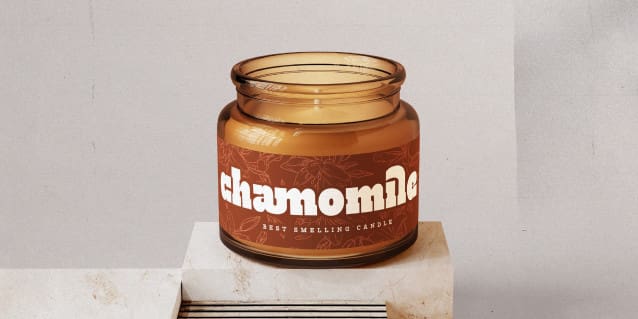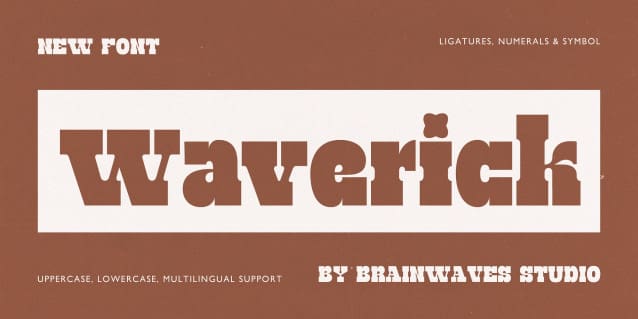
Waverick Font
Waverick Font – Slab Serif Font: a bold, retro-inspired typeface crafted with a classic touch, yet tailored for modern appeal with sharp, clean lines. Perfect for creating impactful logos, striking headlines, elegant brand names, and sophisticated packaging designs. Whether you’re aiming for a vintage look or a sleek, minimalist aesthetic, Waverick Slab Serif Font delivers timeless style and versatility to elevate your graphic design projects to new heights.